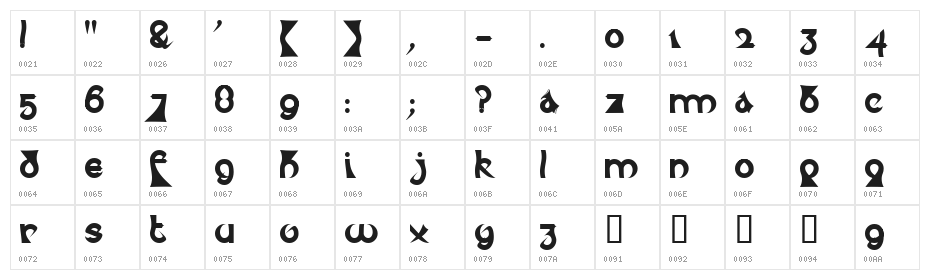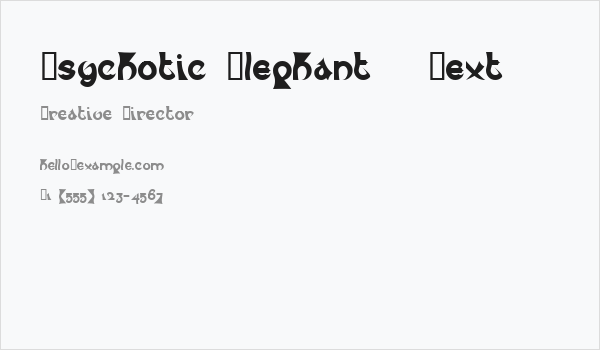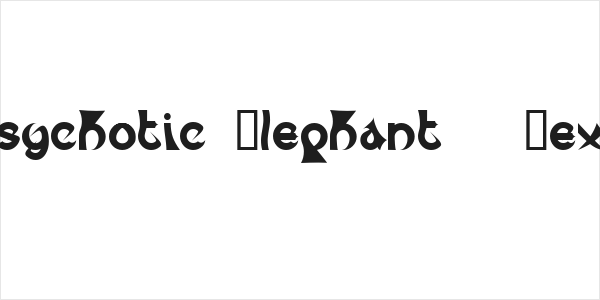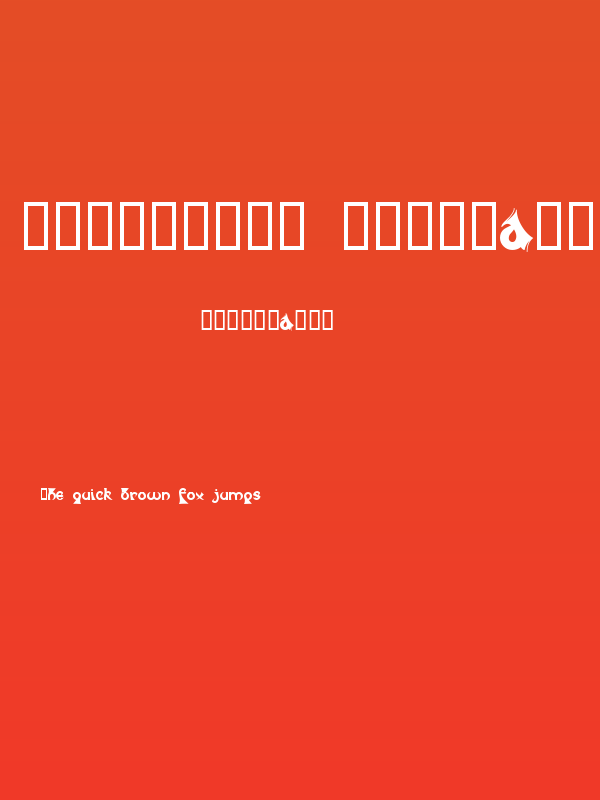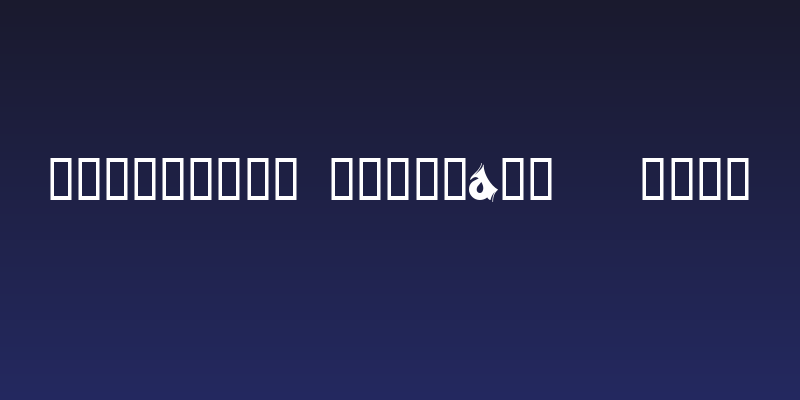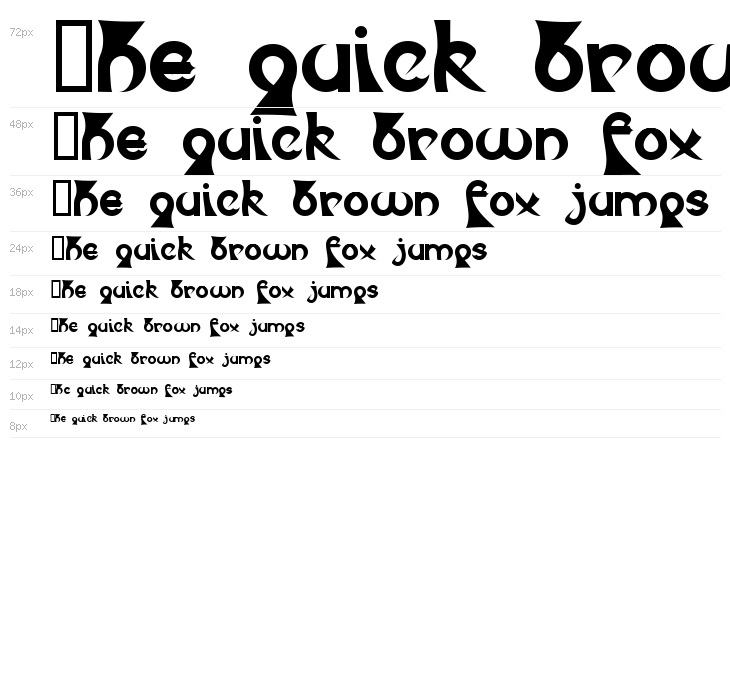
Psychotic Elephant Text Font
Psychotic Elephant Text Description
This font features a highly decorative and unique style, characterized by its bold and exaggerated forms. The letters have a playful and whimsical quality, with varying stroke thickness that adds a dynamic and energetic feel. The uppercase letters are particularly striking, with angular and geometric shapes that create a sense of movement. The lowercase letters maintain a similar style, with rounded edges and distinctive curves. Numbers and special characters follow the same design principles, ensuring consistency throughout. This font is ideal for projects that require a bold and eye-catching aesthetic.
| Proposed Projects | Perfect for posters, album covers, branding, and any project needing a bold statement. |